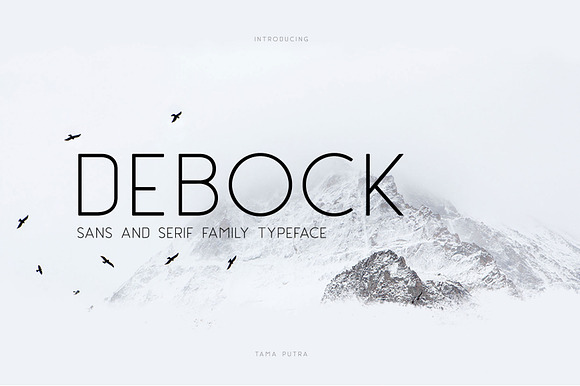
Debock Font
Debock Family Typeface
Debock is a slab serif and sans serif family typeface. It includes multi-lingual and currency support, numerals, and punctuation.
This typeface can be put to many uses:
Debock typeface is suitable font for creating beautiful things and many creative work.
- This typeface can be put to many uses:
- Poster
- Banner Design
- Debock Thin
- Debock Light
- Debock Regular
- Debock Bold
- Debock Heavy
- Debock Sans Thin
- Debock Sans Light
- Debock Sans Regular
- Debock Sans Bold
- Debock Sans Heavy
Why Debock Font is worth a look
Debock Font by Vacatype Co. fits naturally into Branding, posters, packaging, typography.